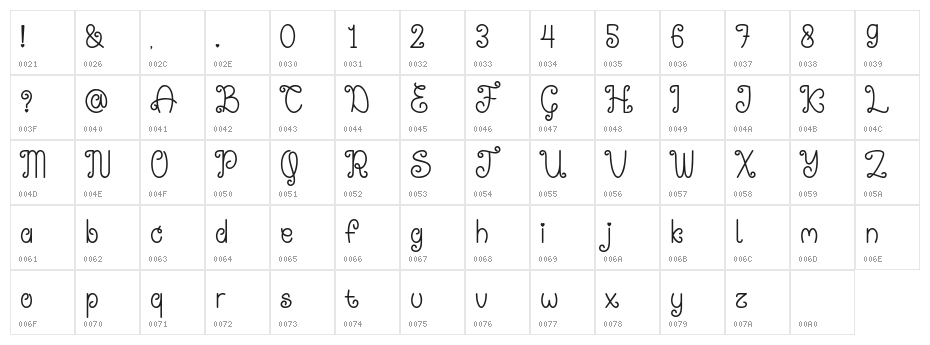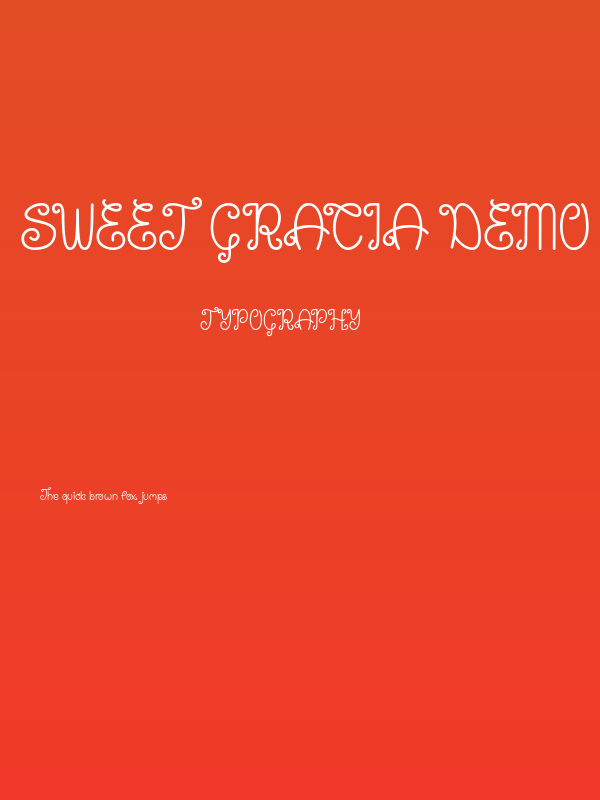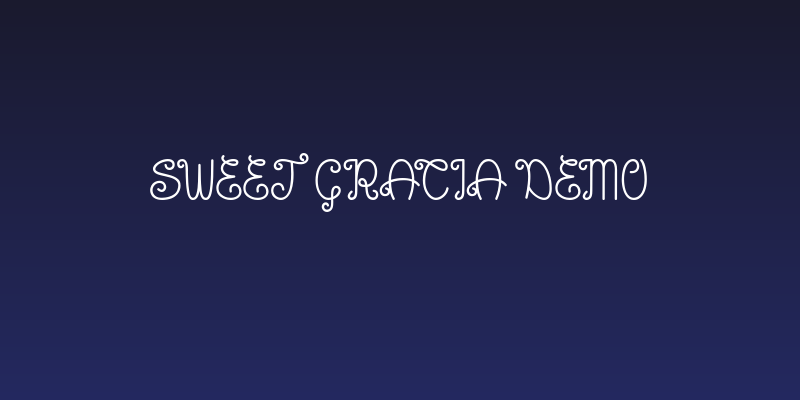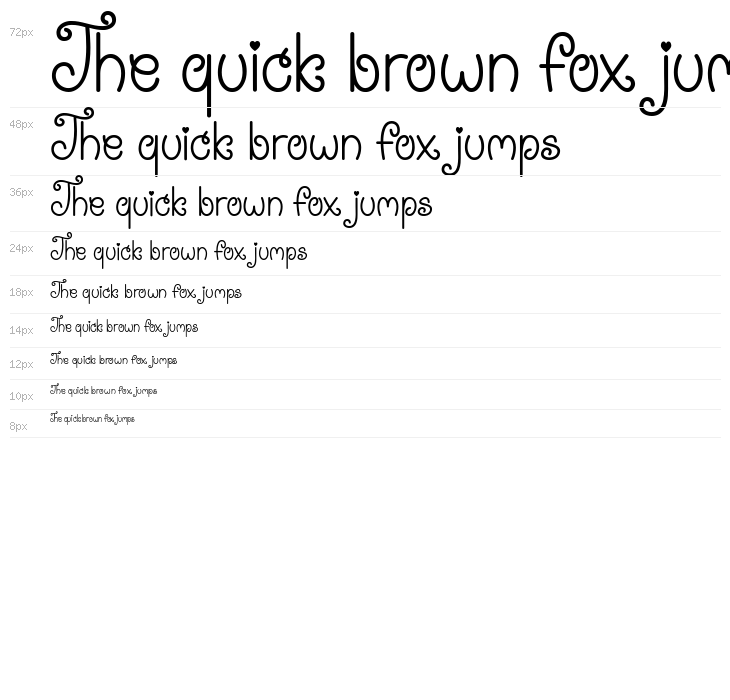
Sweet Gracia Demo Font
Sweet Gracia Demo Description
This font features a whimsical and playful design, characterized by its curly and decorative elements. Each letter is adorned with unique flourishes, giving it a hand-drawn, artistic feel. The uppercase letters are particularly ornate, with loops and swirls that add a touch of elegance and charm. The lowercase letters maintain a consistent style, with rounded edges and a slightly condensed form. Numbers and special characters follow the same decorative theme, ensuring a cohesive look across all glyphs. This font is perfect for projects that require a touch of creativity and personality, such as invitations, greeting cards, or playful branding.
| Proposed Projects | Ideal for invitations, greeting cards, playful branding, and creative projects. |